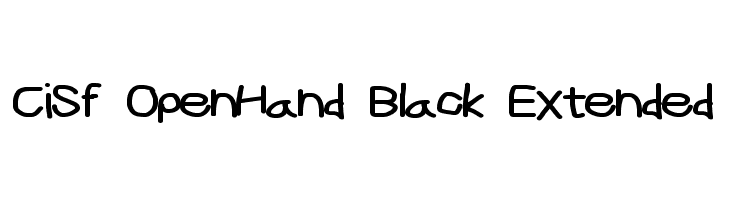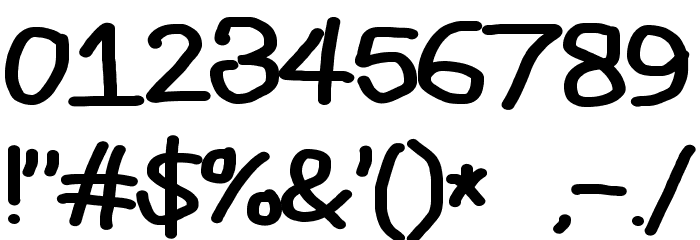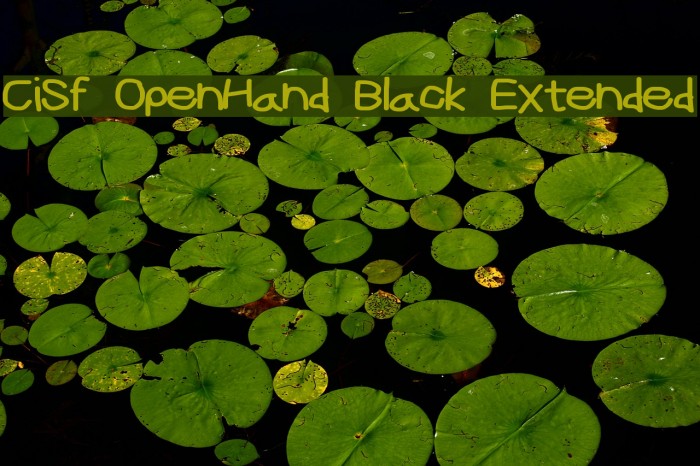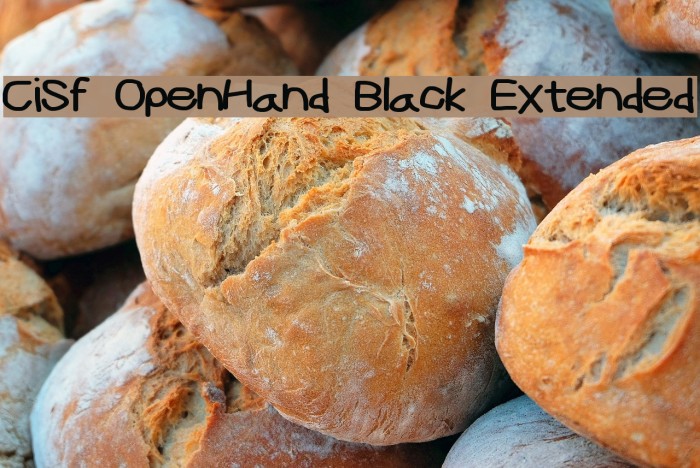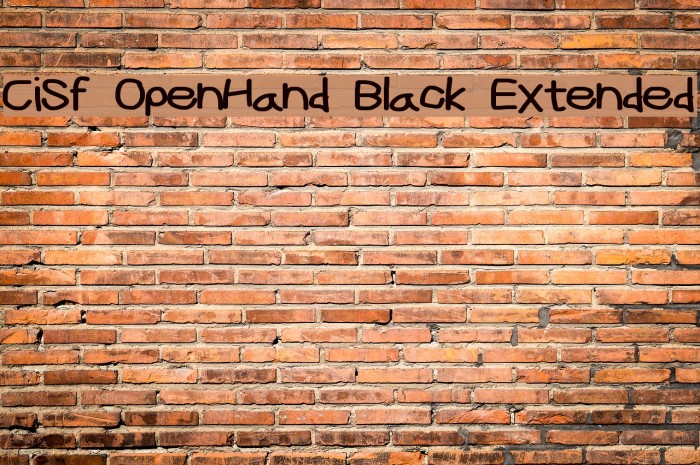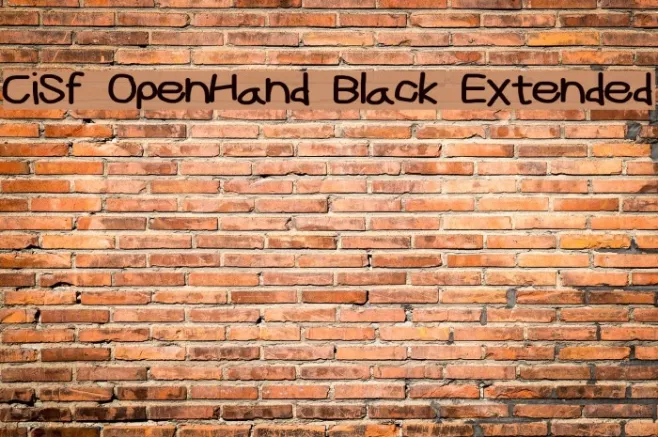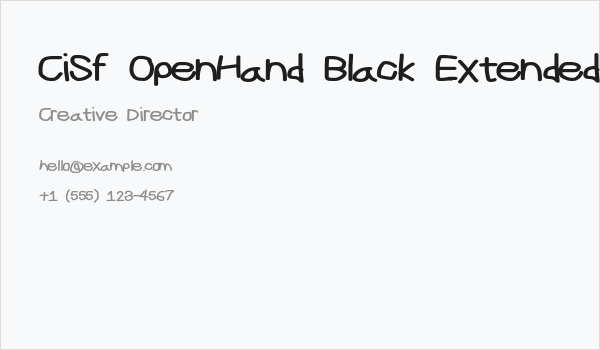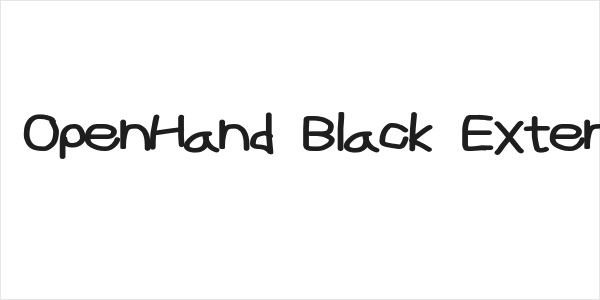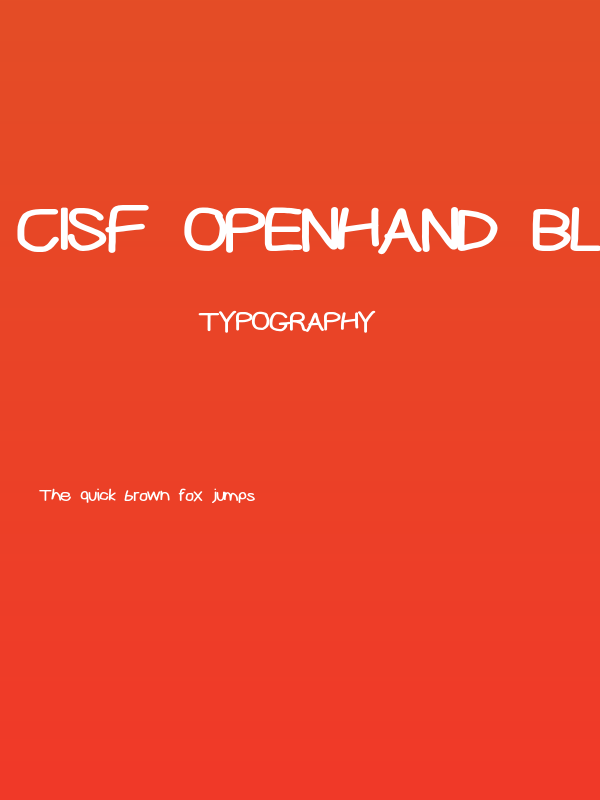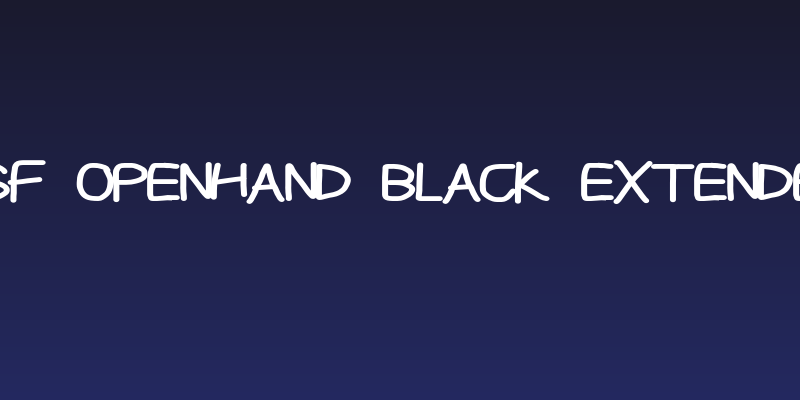
CiSf OpenHand Black Extended Font
CiSf OpenHand Black Extended Description
This font exhibits a playful and informal handwritten style, characterized by its bold and extended letterforms. The strokes are thick and rounded, giving a friendly and approachable appearance. The uppercase and lowercase letters maintain a consistent style, with a slight slant that adds dynamism. The numbers and special characters follow the same design principles, ensuring uniformity across the typeface. The overall look is casual yet bold, making it suitable for projects that require a personal touch.
| Proposed Projects | Ideal for children's books, playful branding, casual invitations, and creative posters. |